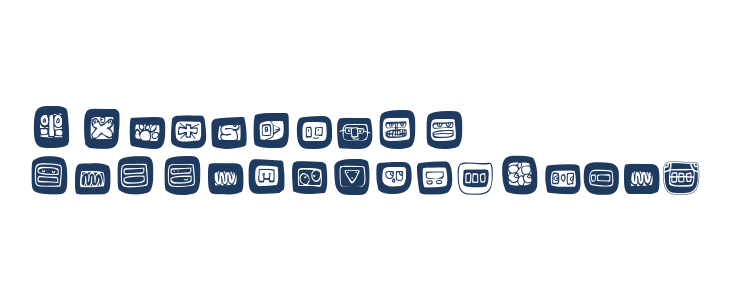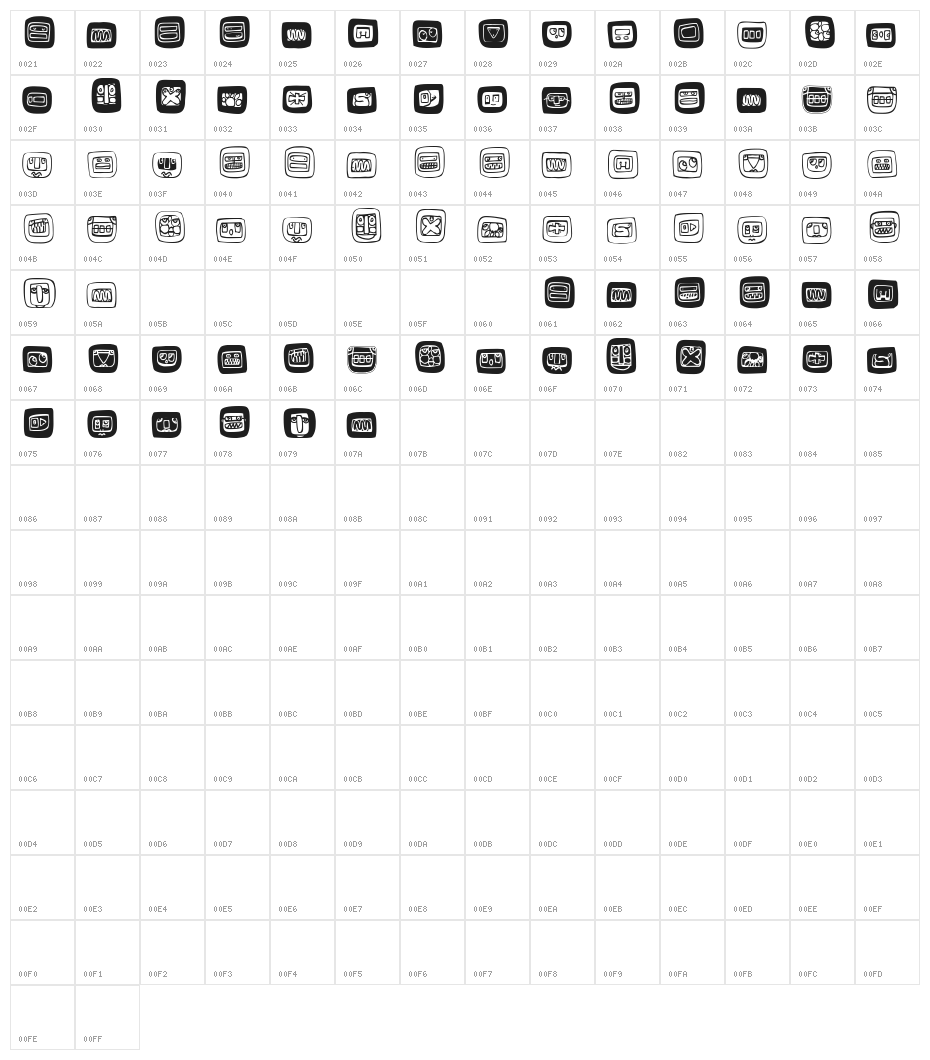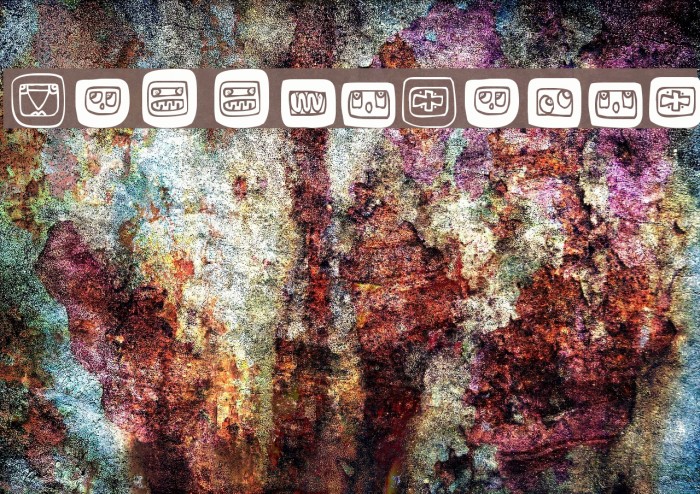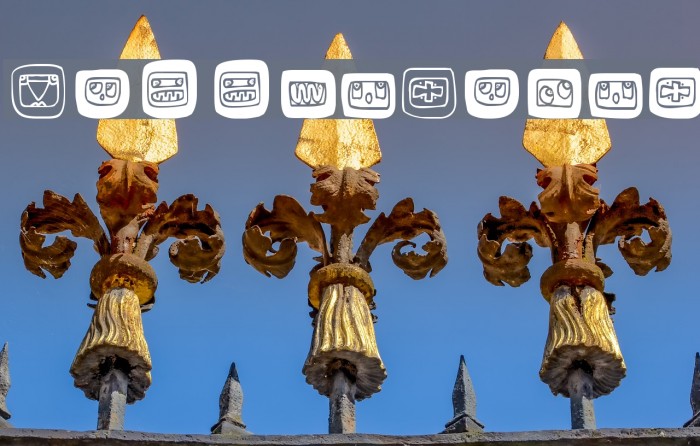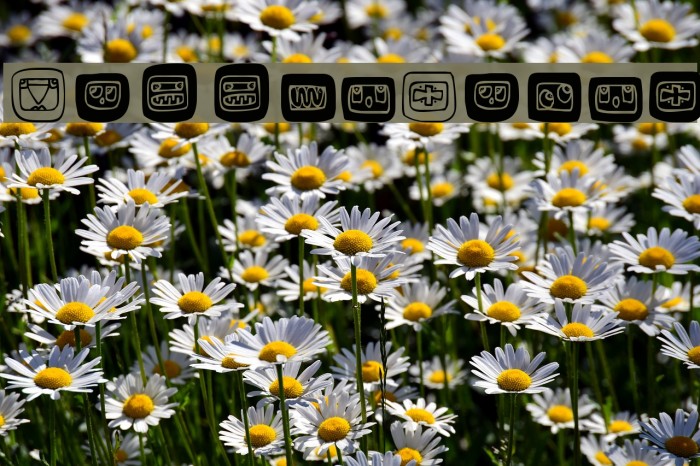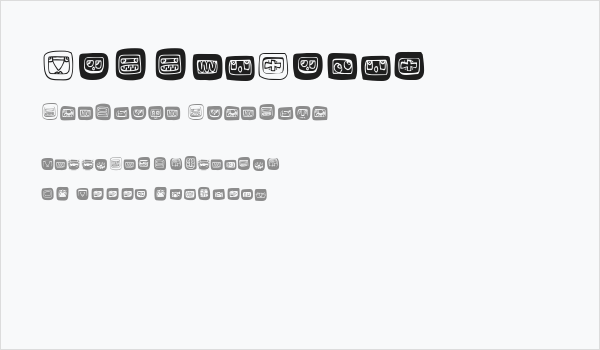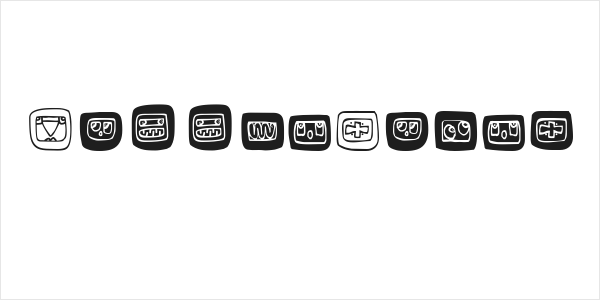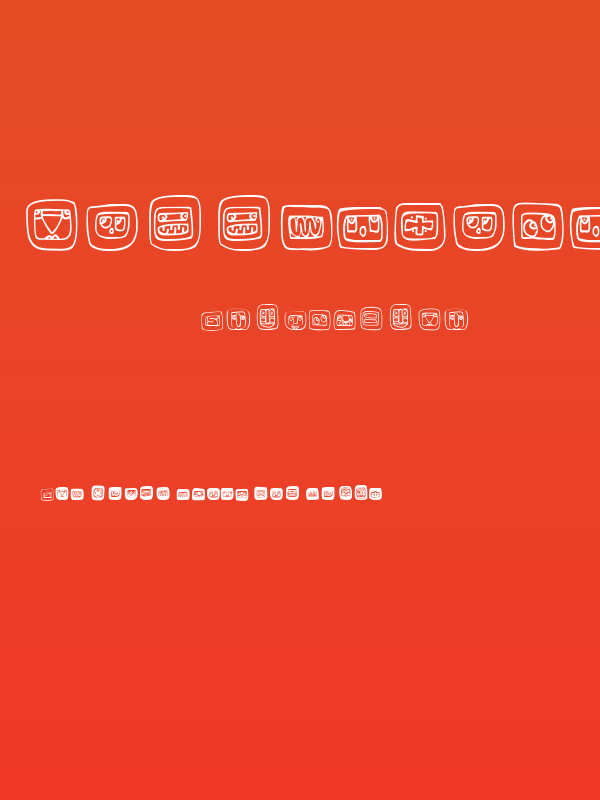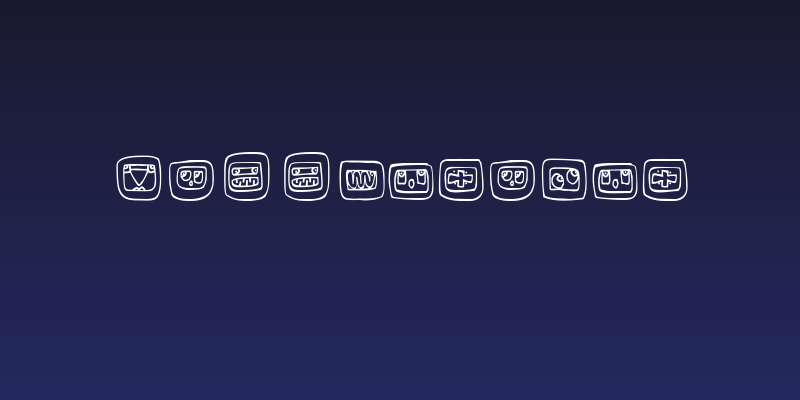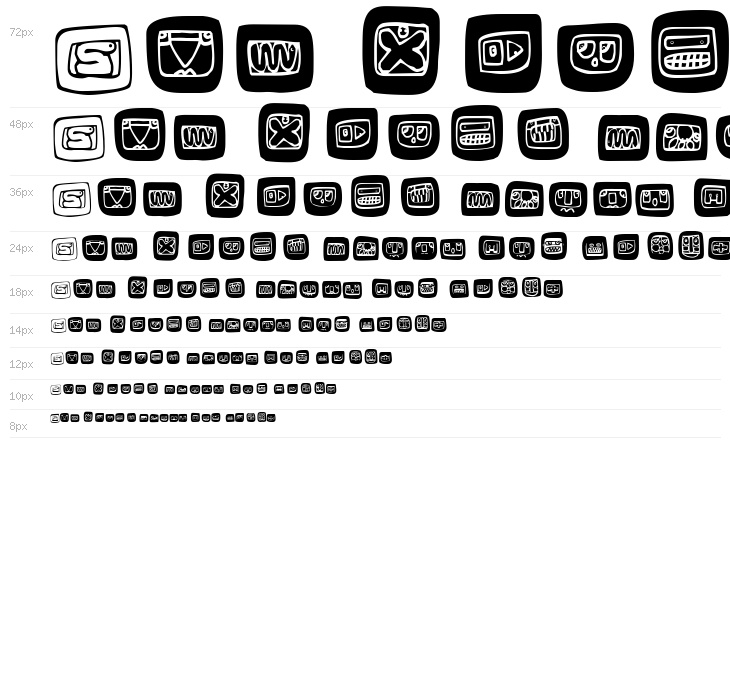
HiddenSigns Font
HiddenSigns Description
This font features a series of intricate, glyph-like symbols that resemble ancient hieroglyphs or pictograms. Each character is enclosed within a rounded square, giving a uniform appearance across the set. The designs are highly decorative, with each symbol containing complex patterns and shapes that suggest a mysterious or cryptic theme. The bold outlines and filled interiors create a striking contrast, making the symbols stand out distinctly. This font is not intended for traditional text but rather for artistic or thematic projects where a sense of ancient or mystical aesthetics is desired.
| Use Case | Logos, Artistic projects, Themed designs |
| Proposed Projects | Ideal for use in themed artwork, game design, or any project requiring an ancient or mystical aesthetic. |